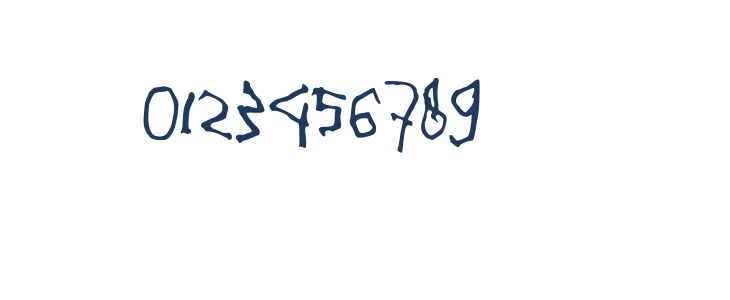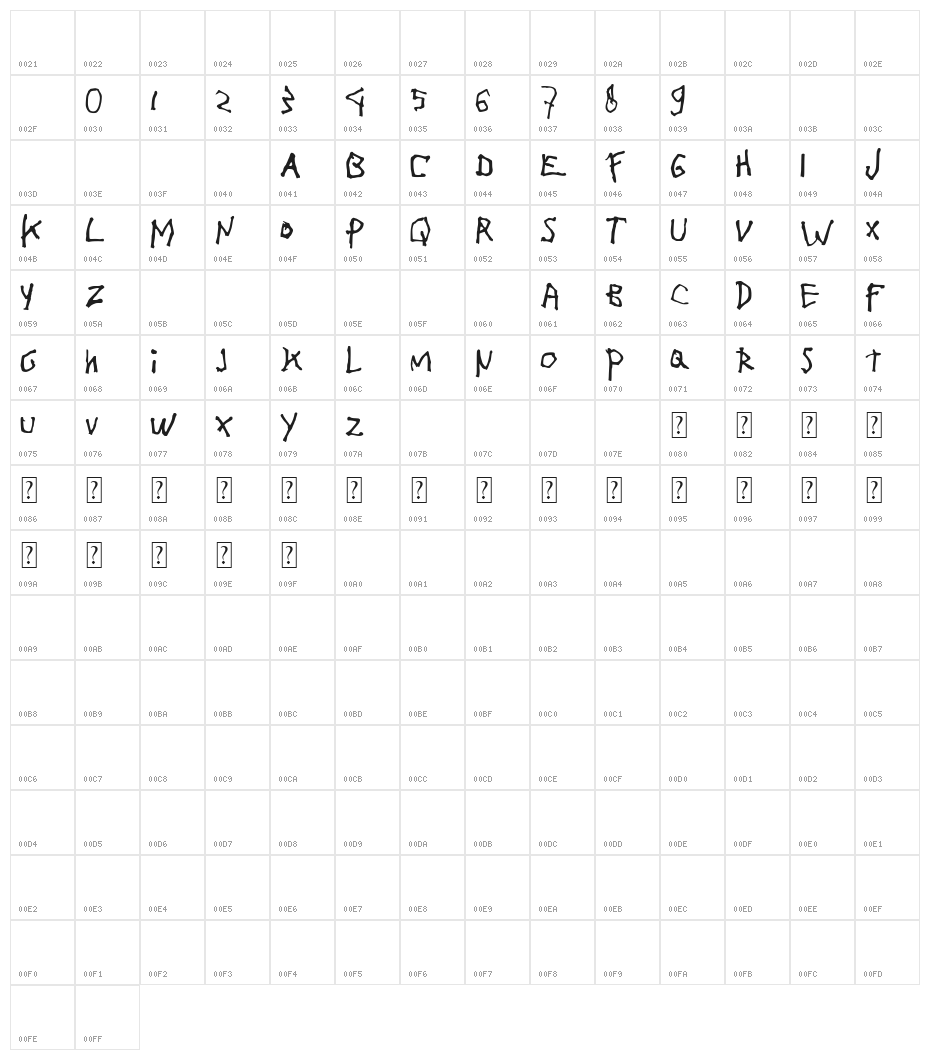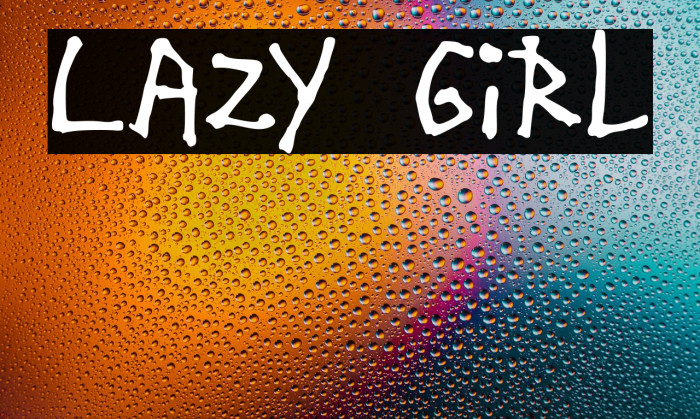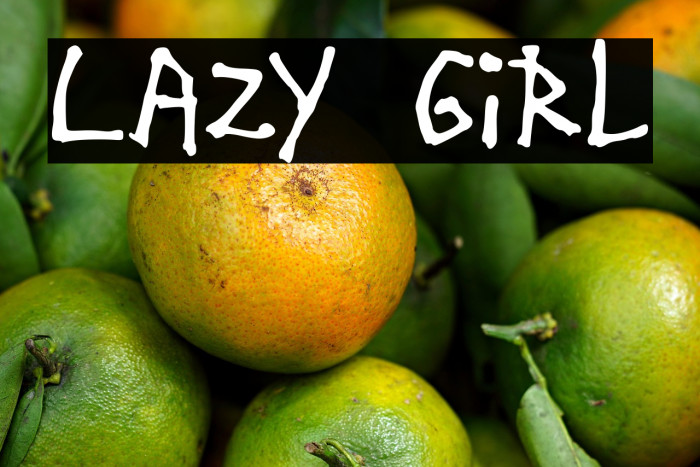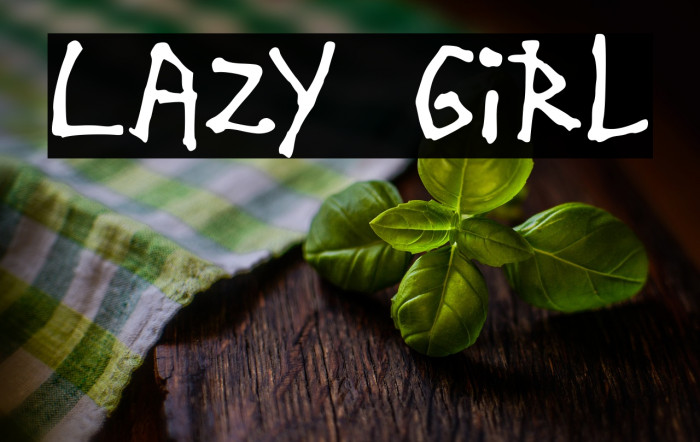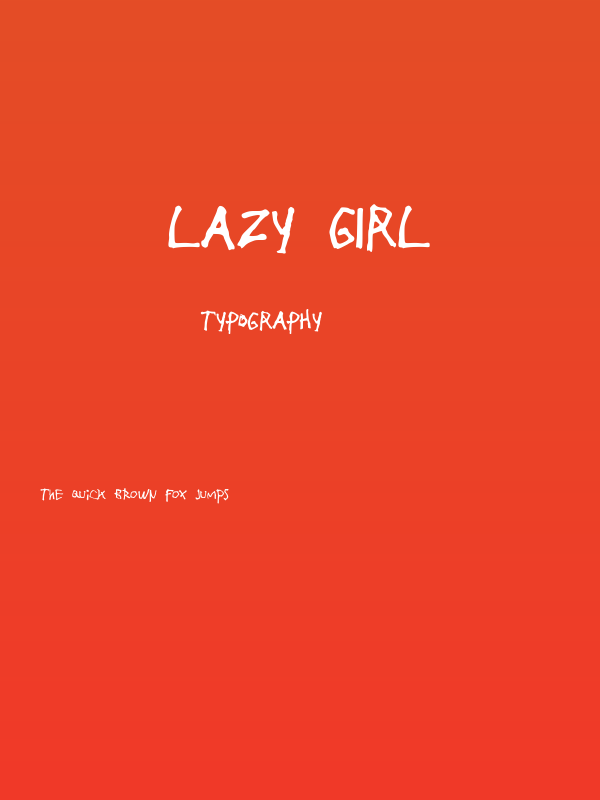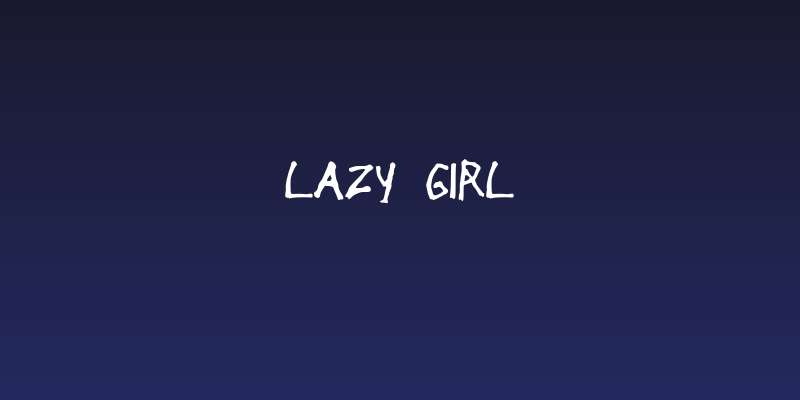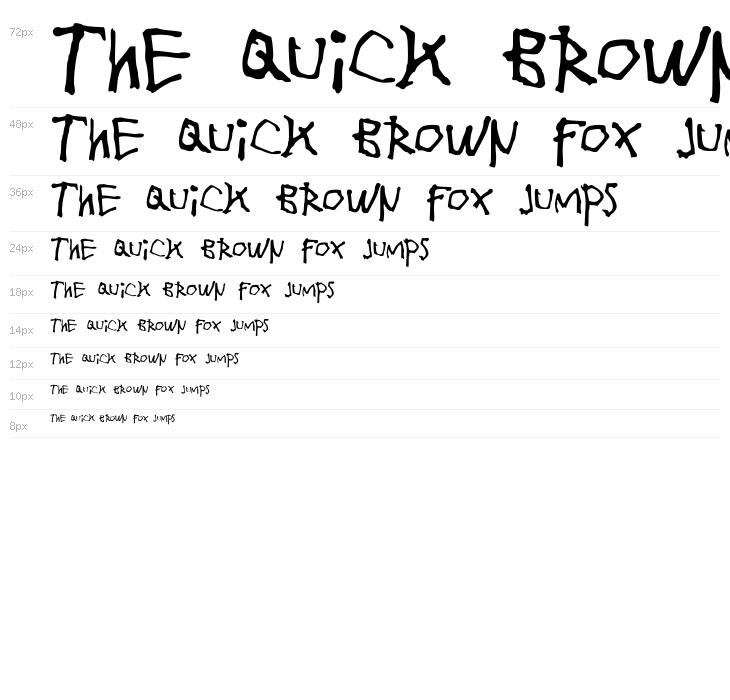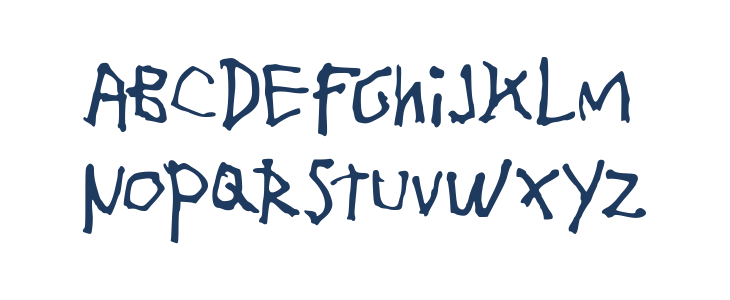
Lazy Girl Font
Lazy Girl Description
This font features a playful and casual handwritten style, characterized by its irregular and slightly erratic strokes. The letters have a spontaneous and dynamic appearance, with varying thickness that adds to its informal charm. The uppercase and lowercase letters maintain a consistent flow, while the numerals and special characters complement the overall aesthetic. Its unique and artistic flair makes it stand out, offering a sense of creativity and individuality. The font's organic and freeform nature is perfect for projects that require a personal touch or a relaxed vibe.
Overall StyleCasual, Artistic
Use CaseHeadlines, Logos, Creative projects
Proposed ProjectsIdeal for creative projects such as greeting cards, invitations, posters, and personal branding.